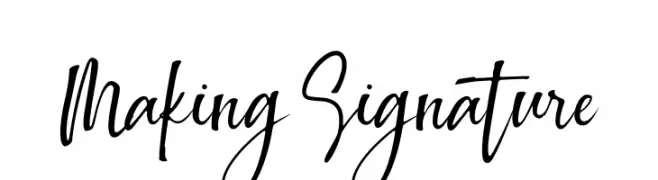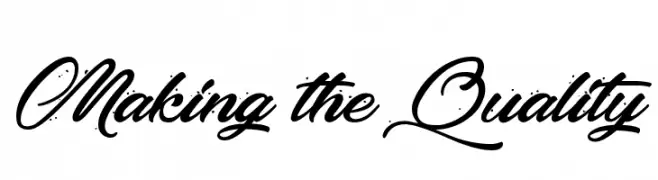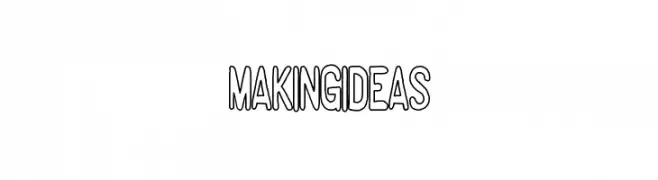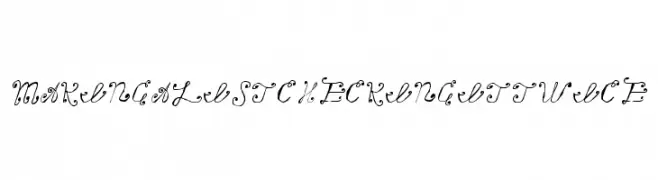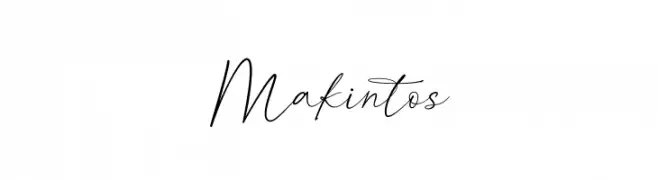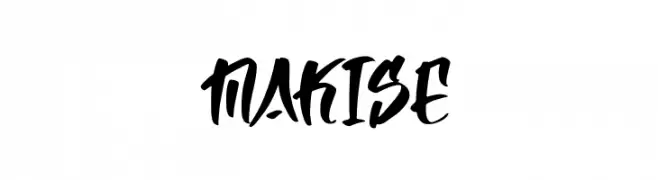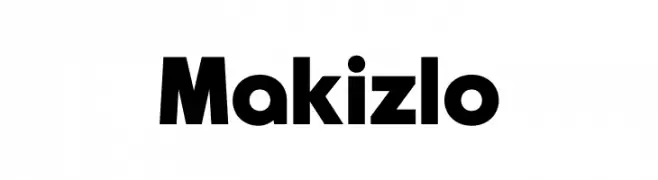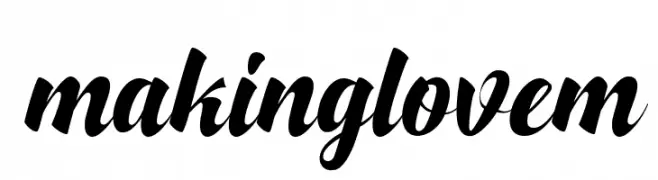
A fluid, signature-style script font with elegant connections and a personal touch.
A dynamic and expressive script font with elegant strokes and decorative flourishes.
A whimsical script font with decorative flourishes and playful embellishments.
A playful, bold outline font with a bubble-like, three-dimensional appearance.
A bold, flowing script font with a dynamic, handwritten style.
An elegant cursive font with fluid, connected strokes and a refined appearance.
A bold, brush-style script font with dynamic and expressive characters.
A bold, geometric font with rounded edges and a modern, industrial style.
Bold, geometric font with rounded corners and uniform thickness.
A bold, geometric typeface with a modern and commanding presence.